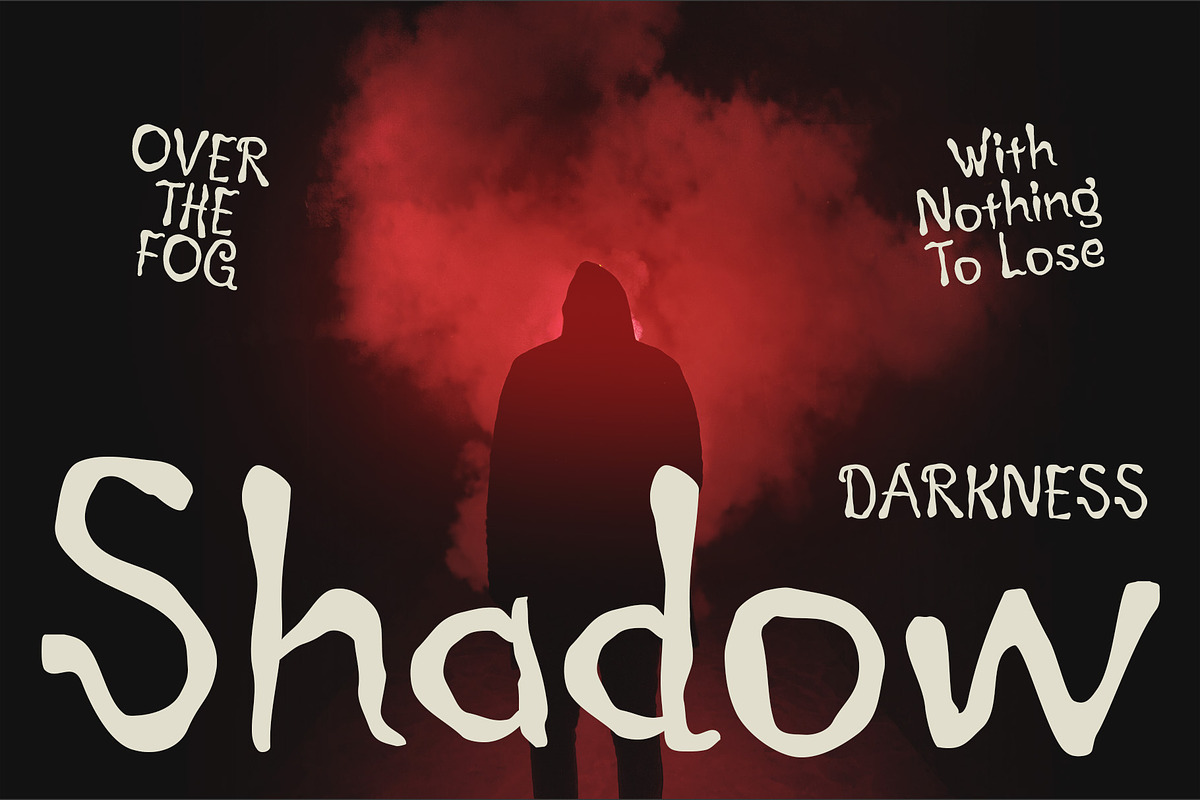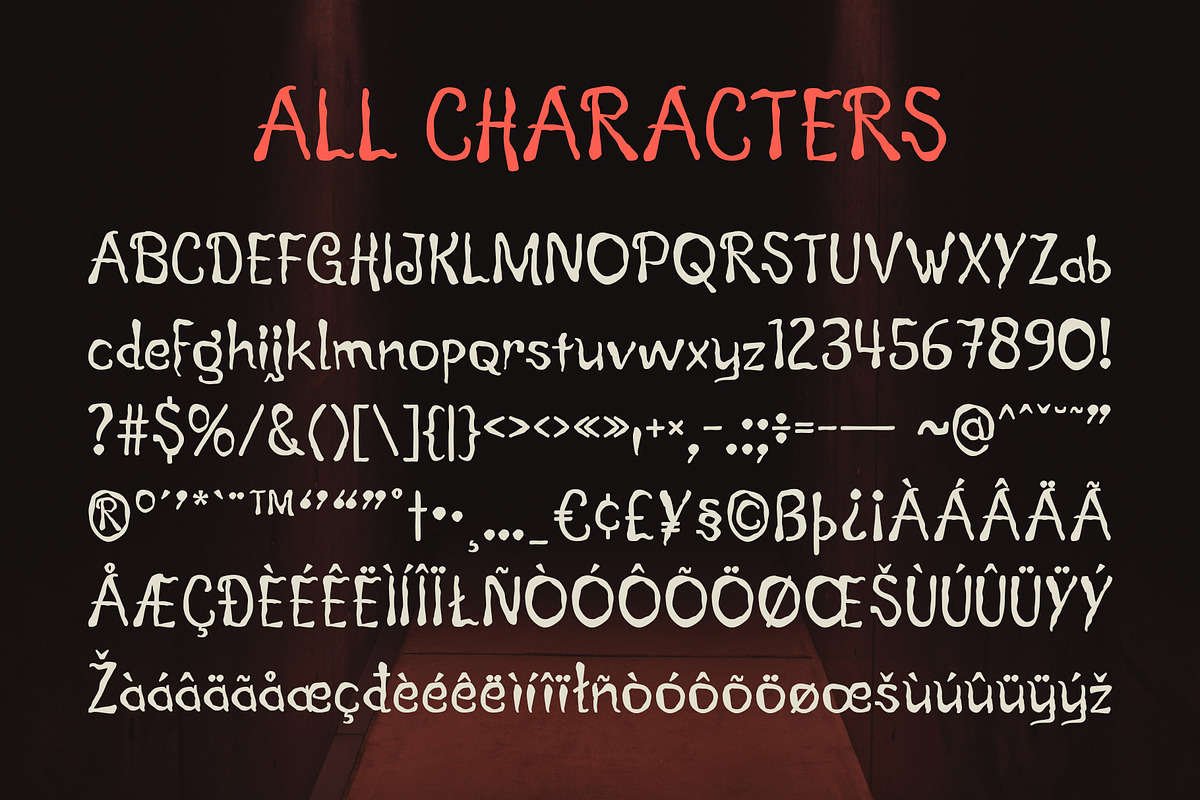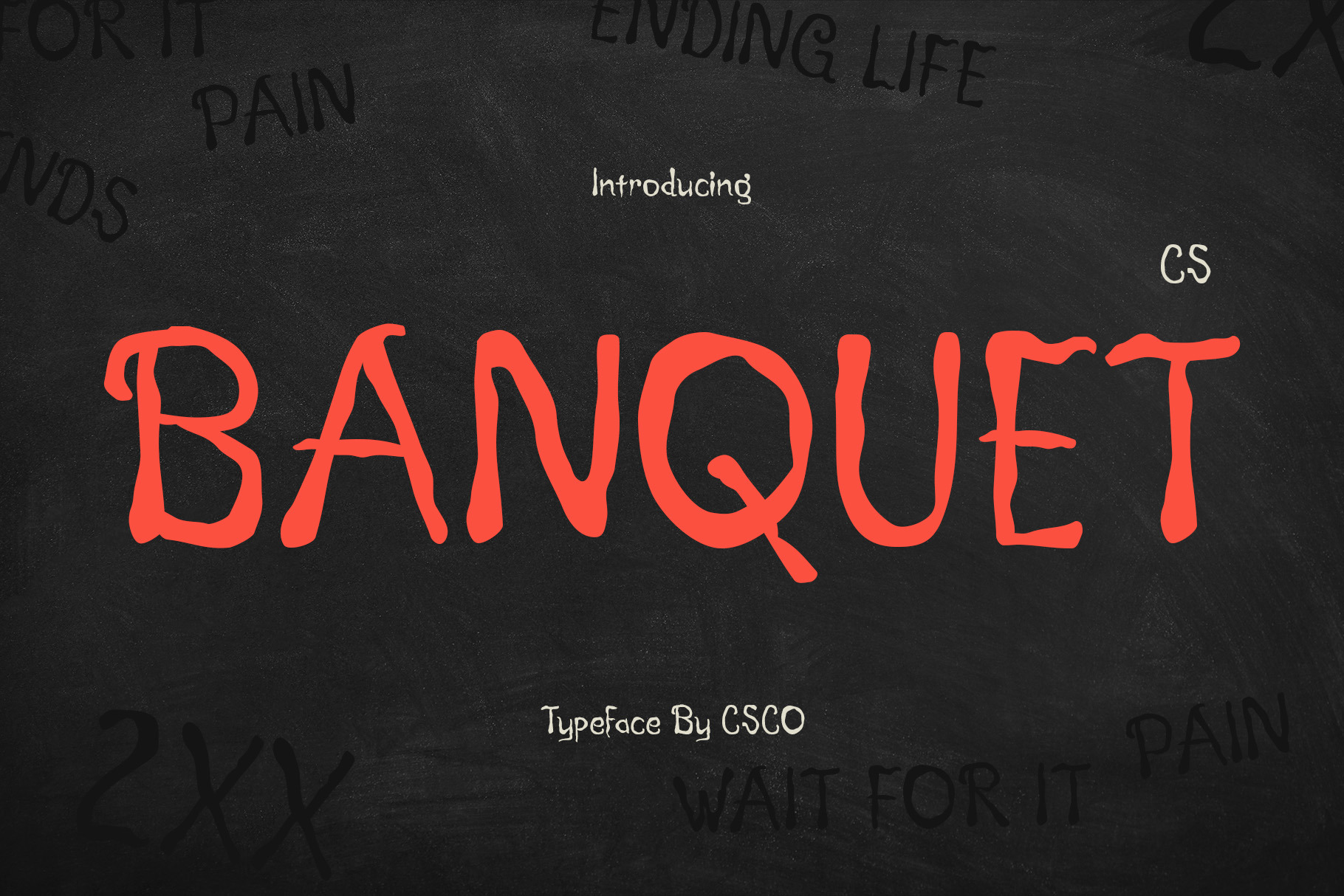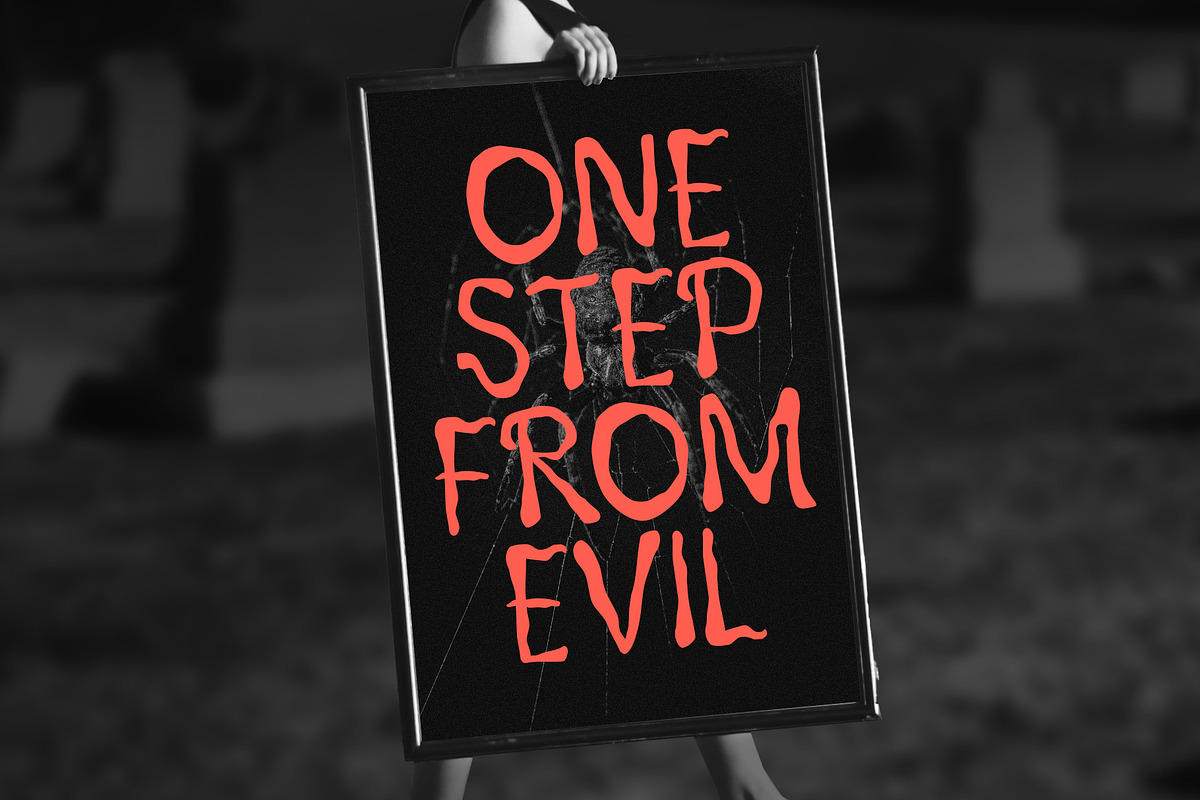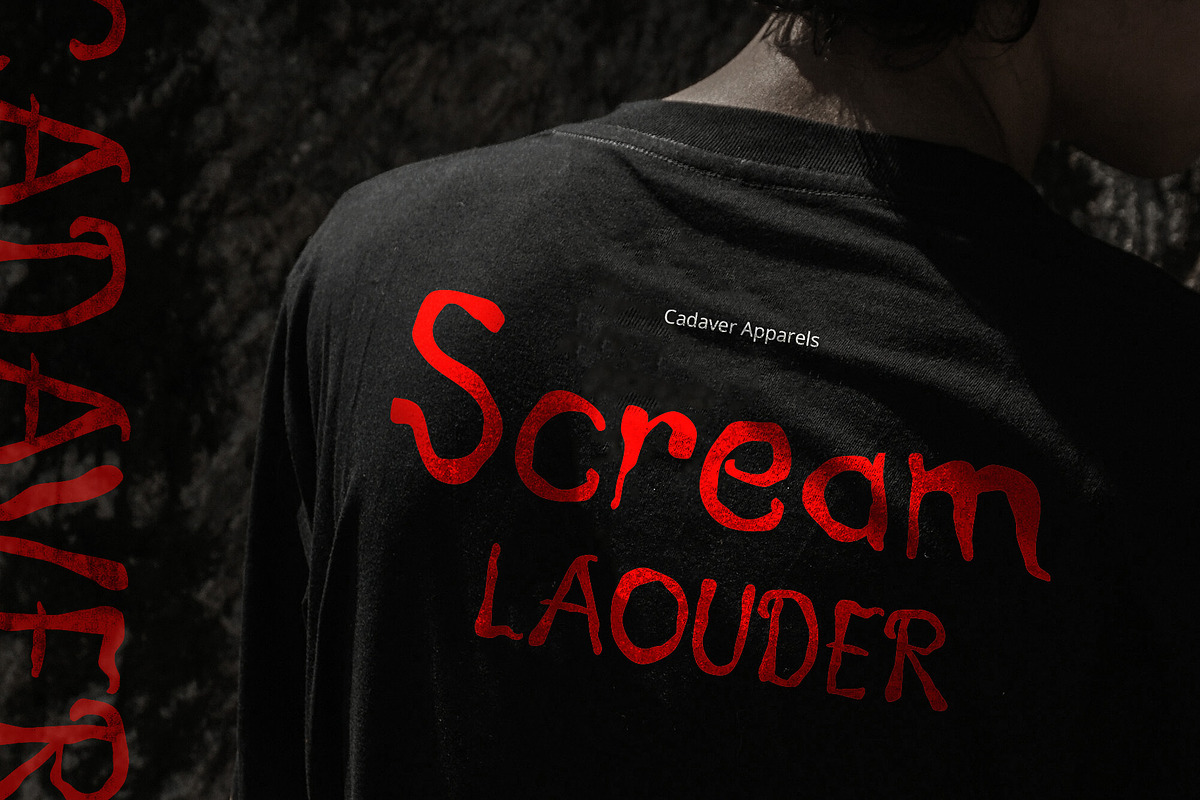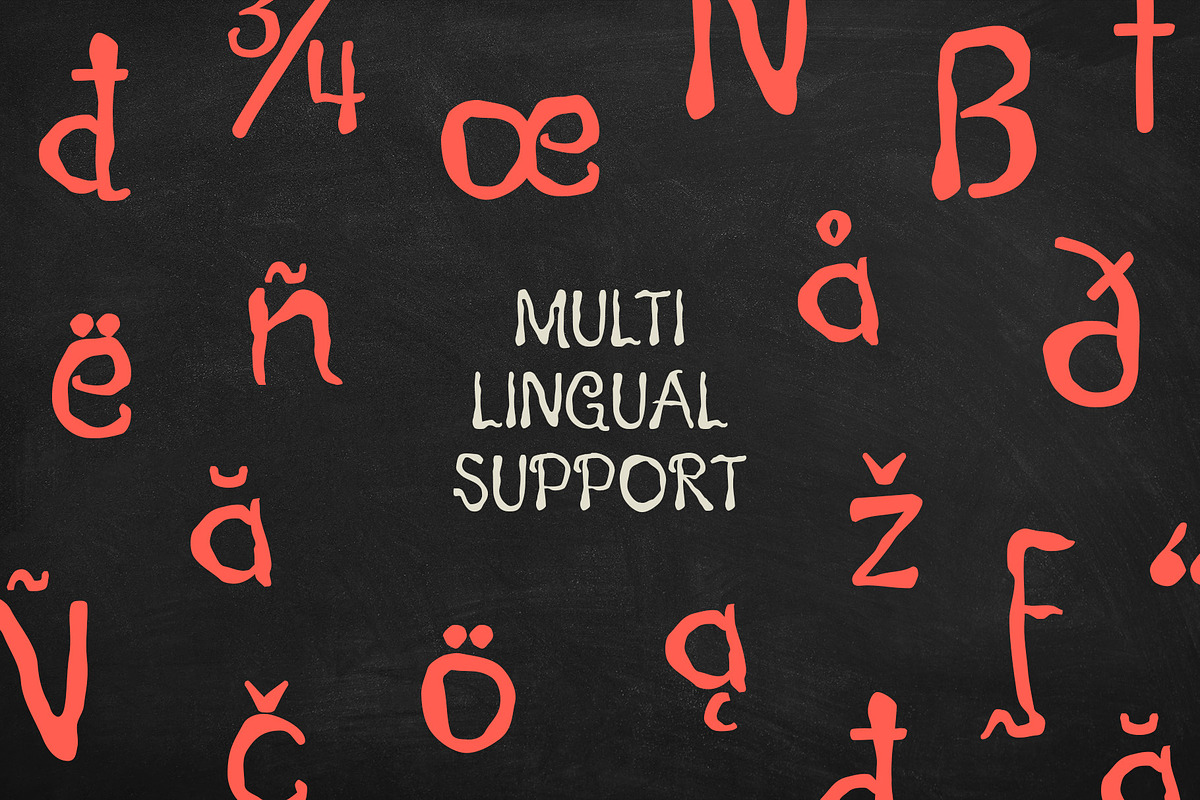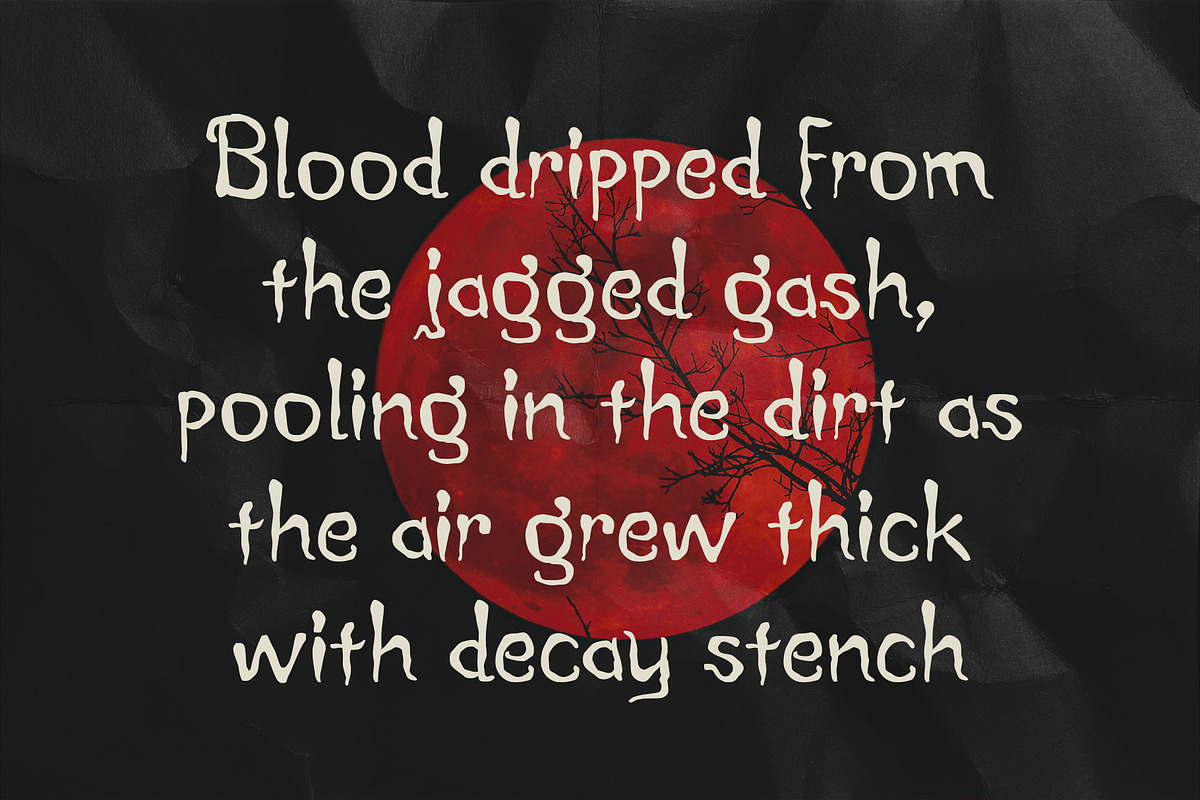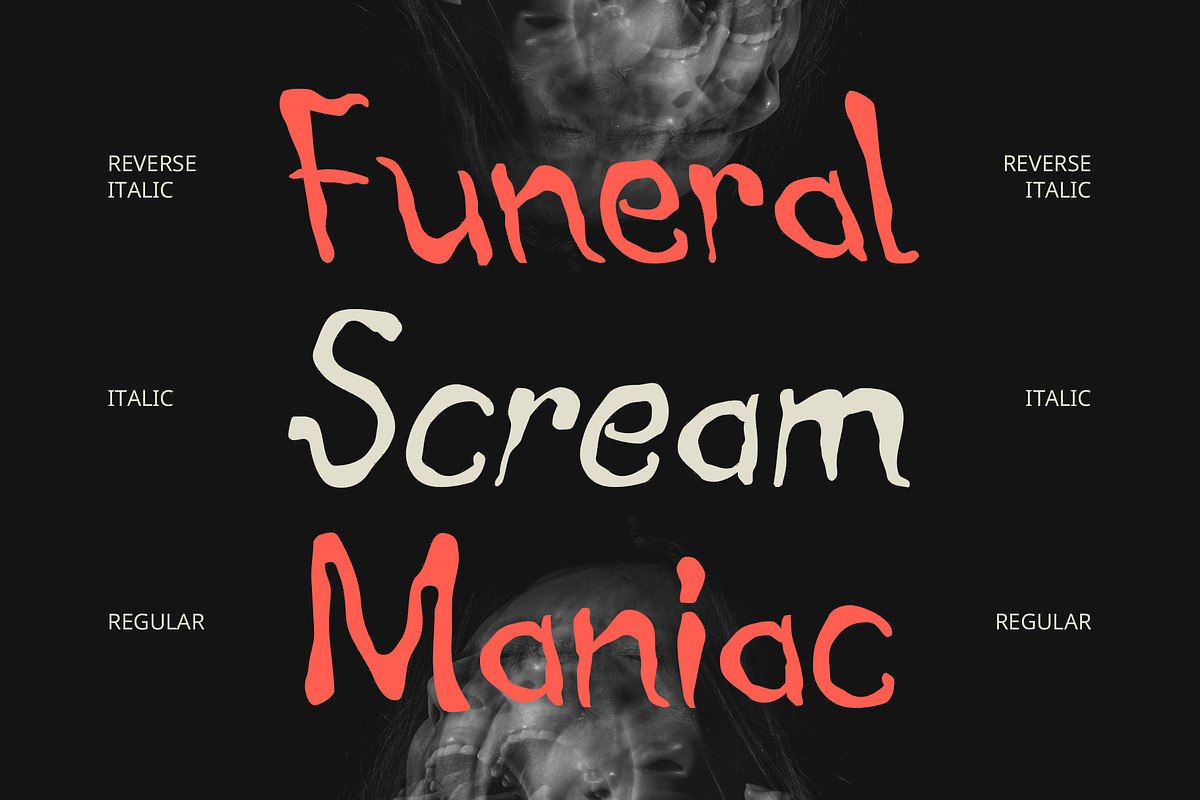
CS Banquet – Etchy Font
CS Banquet – A Raw and Edgy Etchy Font
Rough Strokes with a Hand-Drawn Feel CS Banquet is an Etchy display font with rough strokes, uneven edges, and a naturally scratched appearance, delivering a distinctively raw and unpolished aesthetic. Inspired by hand-drawn textures and expressive, rebellious artistry, it embodies an organic yet chaotic energy, making it perfect for projects that demand a bold, unconventional, and striking visual impact.
Expressive and Experimental Design With its imperfect textures and rugged details, CS Banquet captures the essence of distressed lettering, DIY aesthetics, and underground creativity. Its sketchy, almost erratic lines evoke a sense of movement and artistic spontaneity, making it well-suited for designs that push boundaries and embrace individuality.
Perfect for Grunge, Punk, and Horror Themes CS Banquet thrives in punk-inspired posters, grunge album covers, horror-themed branding, and rebellious street art designs. The raw, etched look makes it an excellent choice for dark, moody, and intense projects, adding a layer of authenticity and handcrafted appeal.
A Versatile Typeface for Unconventional Creativity Despite its rough and chaotic nature, CS Banquet remains highly adaptable for editorial covers, artistic merchandise, experimental typography, and branding that dares to be different. Whether you’re designing for music, fashion, or alternative media, this font adds an edgy, untamed, and eye-catching element to any creation.
- CS Banquet Regular
- CS Banquet Italic
- CS Banquet Reverse Italic